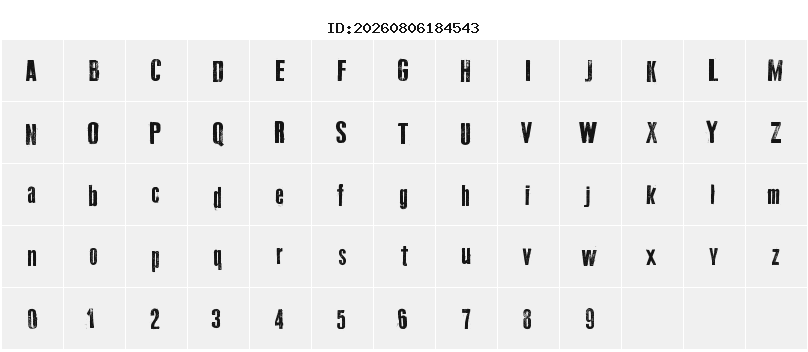
Old Typography.ttf
• Font Name: Old Typography
• Manufacturer: Galdino Otten
About Old Typography.ttf
Old Typography.ttf is a modern, elegant sans-serif font designed for ultimate readability and visual harmony. Perfect for branding, headlines, web design, and print materials.